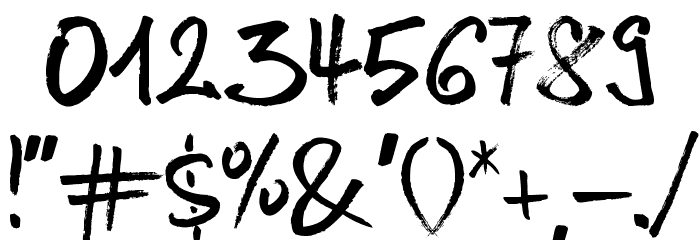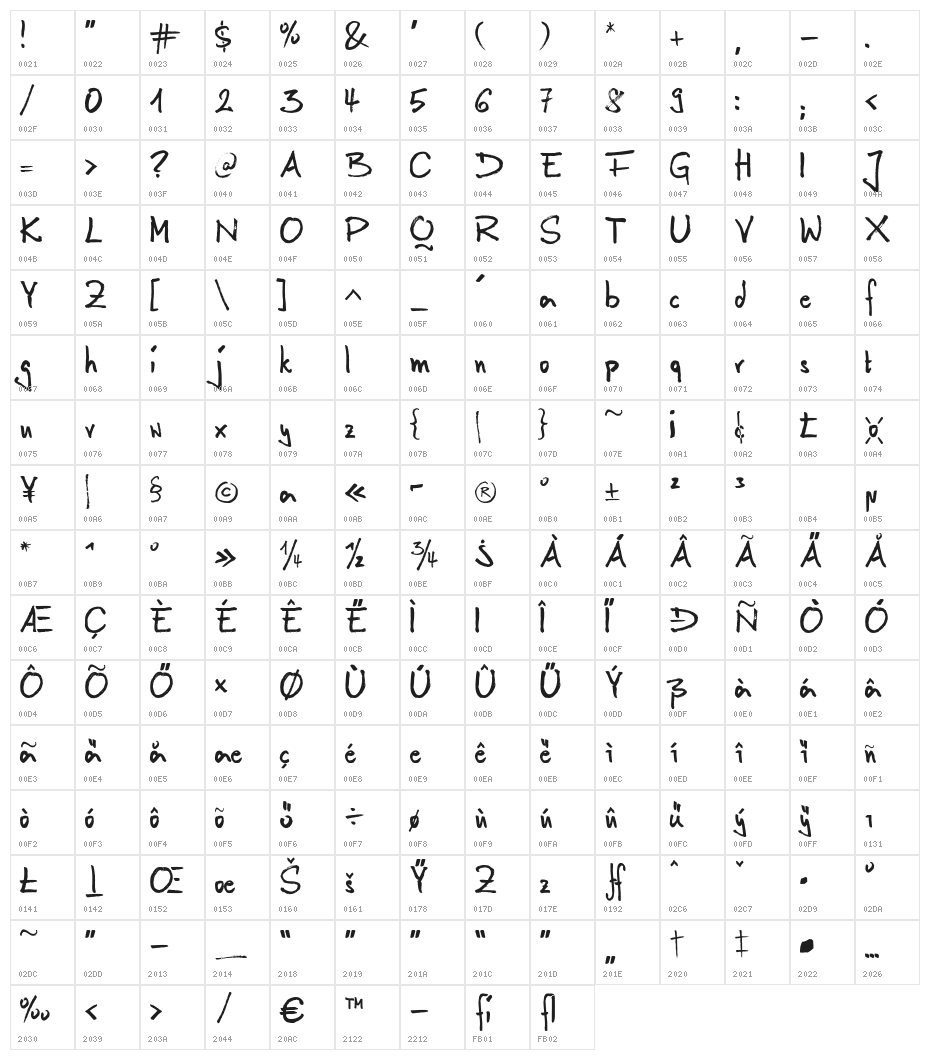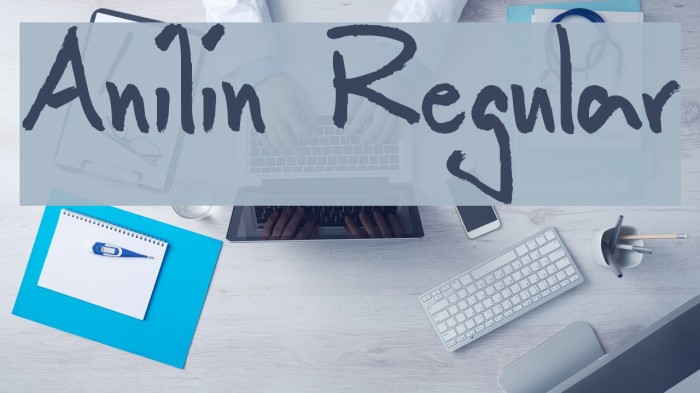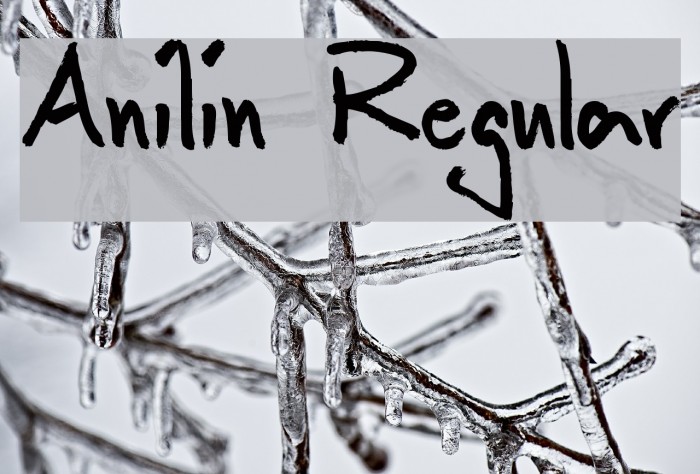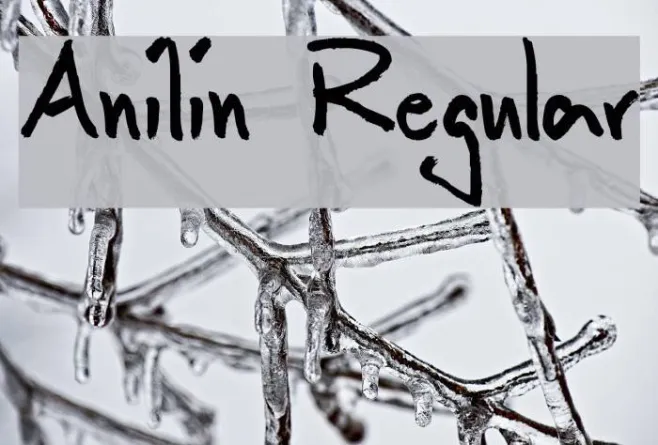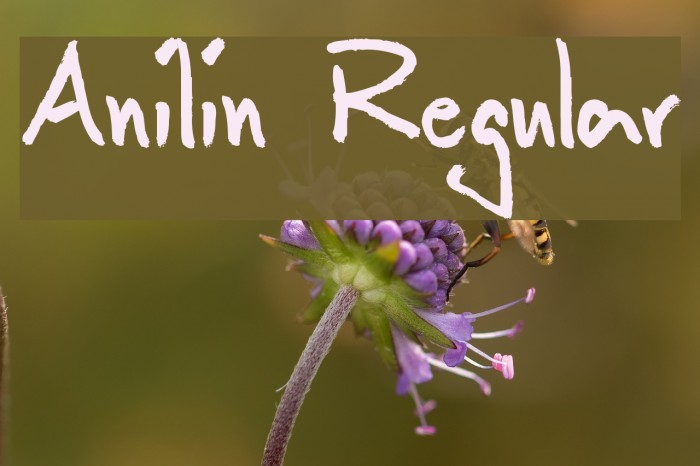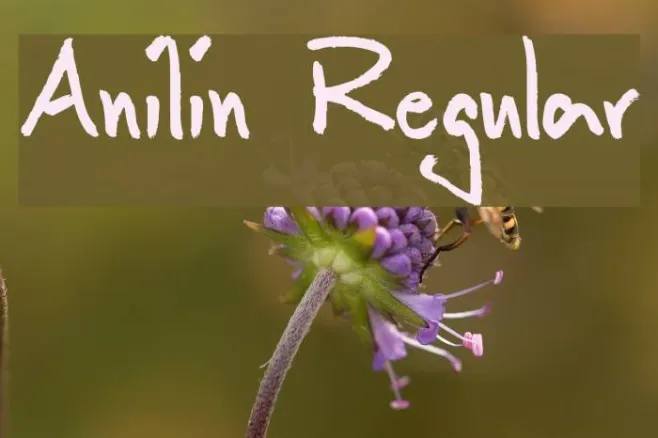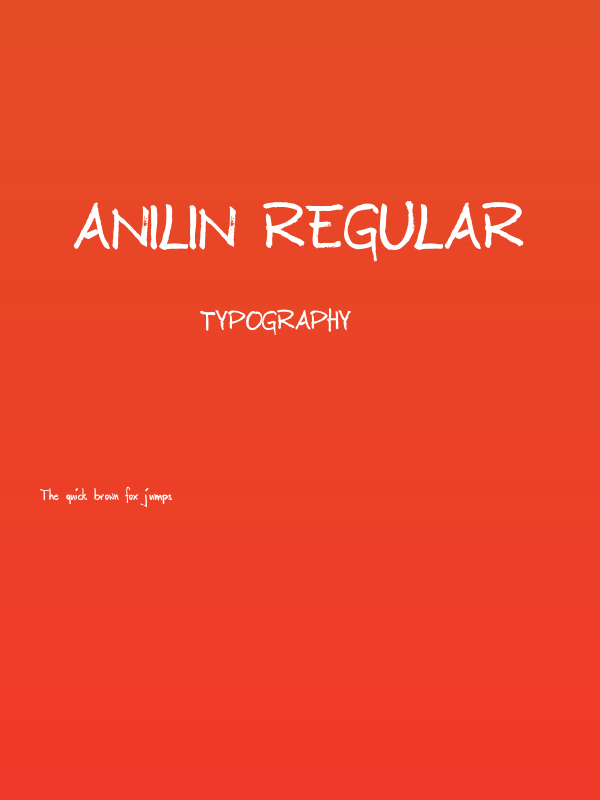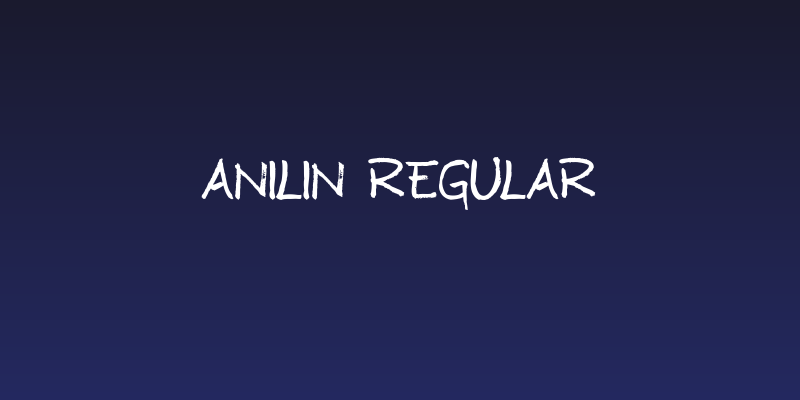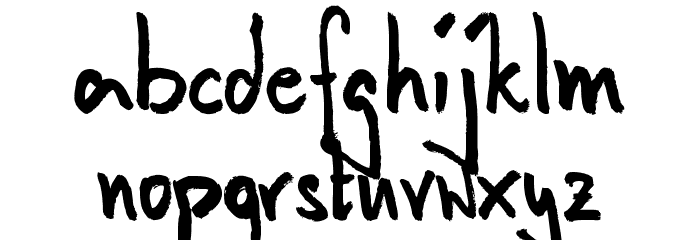
Anilin Regular Font
Anilin Regular Description
This font exhibits a bold, expressive style reminiscent of hand-drawn brush strokes. The characters have a dynamic, energetic appearance with uneven edges and varying thickness, creating a sense of movement and spontaneity. The uppercase letters are tall and commanding, while the lowercase letters maintain a playful, informal vibe. Numbers and special characters follow the same lively pattern, making the font suitable for creative and artistic projects. Its unique, handcrafted look adds a personal touch to any design.
| Proposed Projects | Ideal for artistic projects, posters, album covers, and branding that seeks a personal, handcrafted touch. |